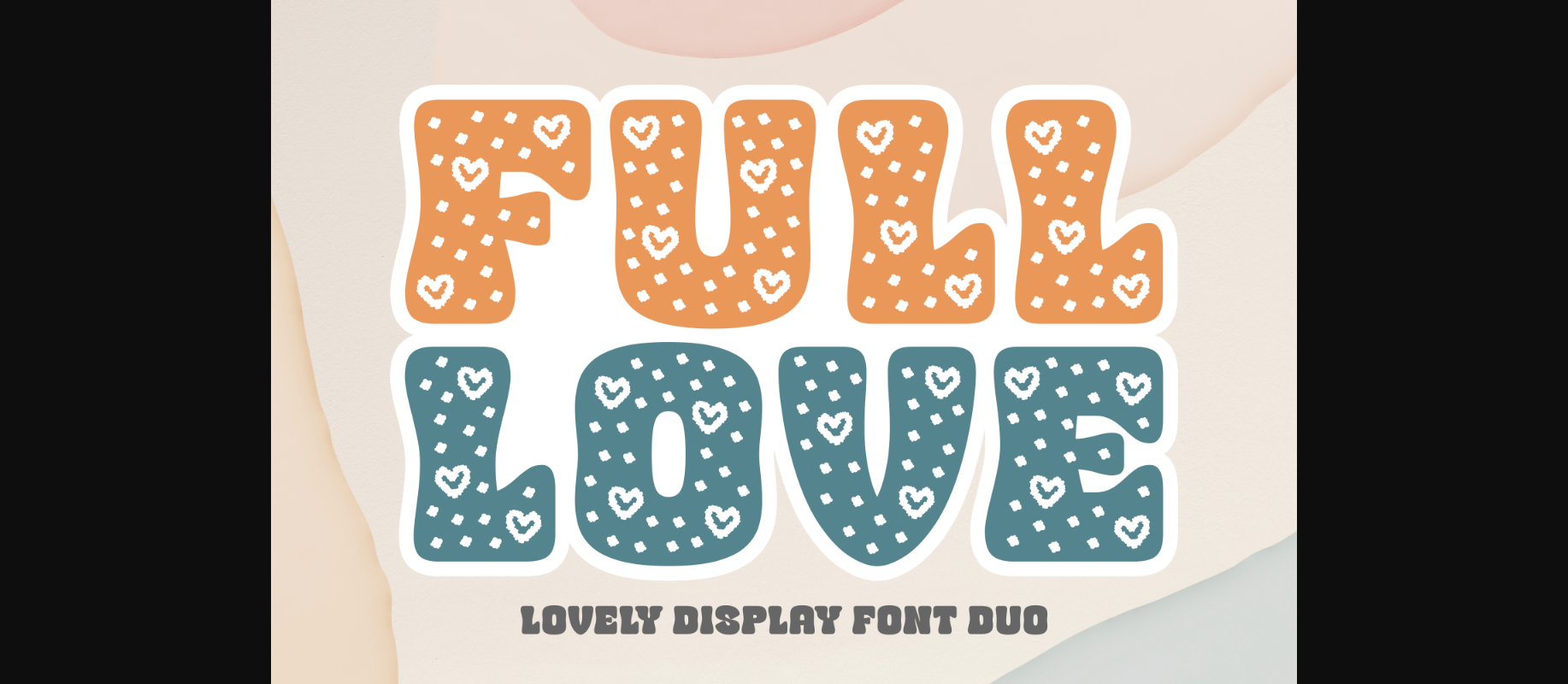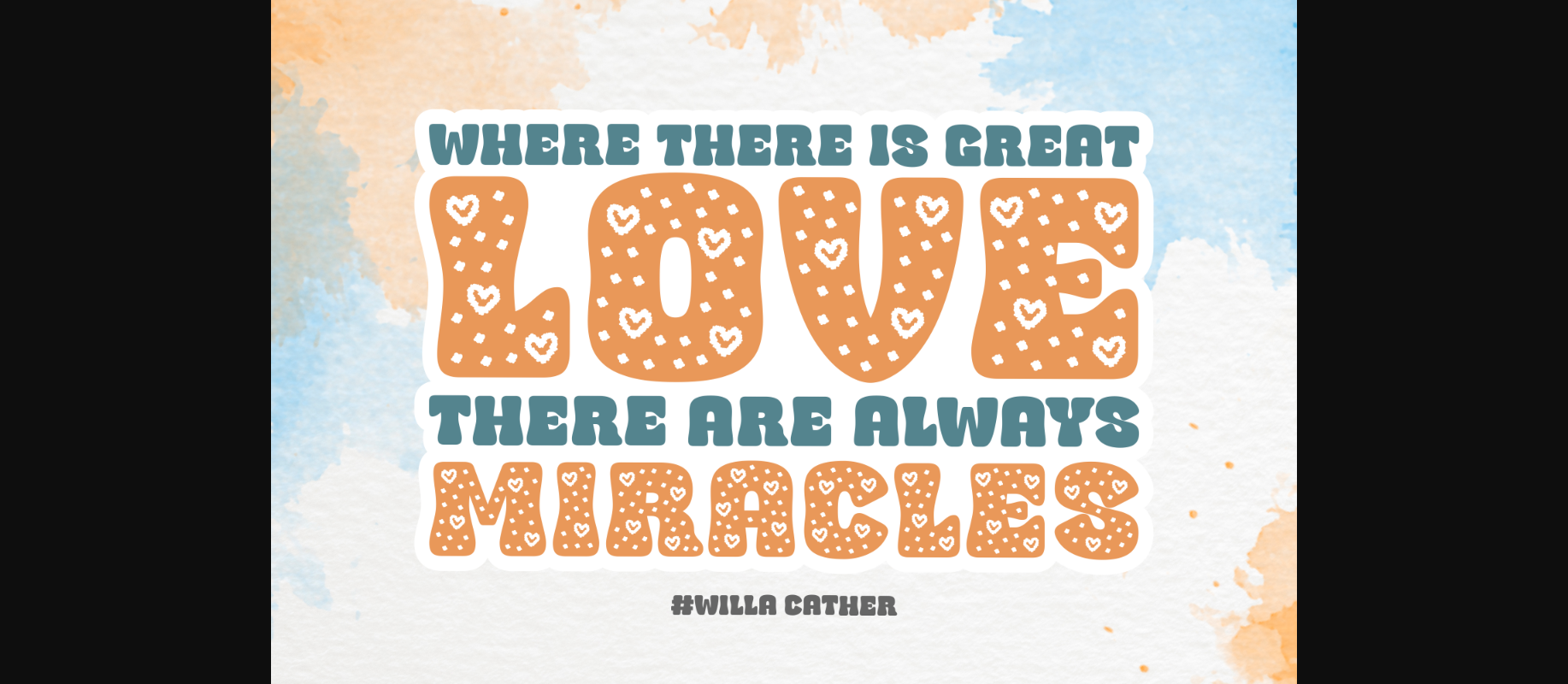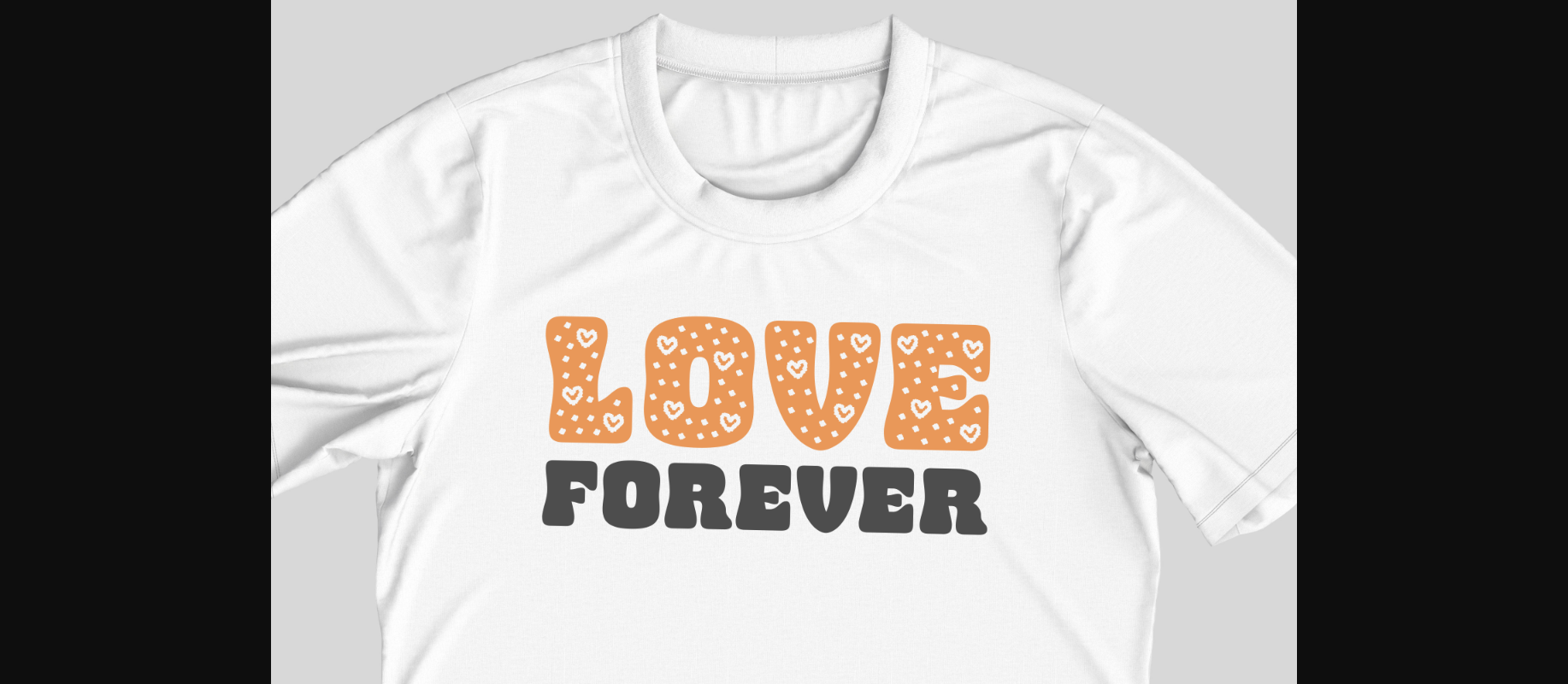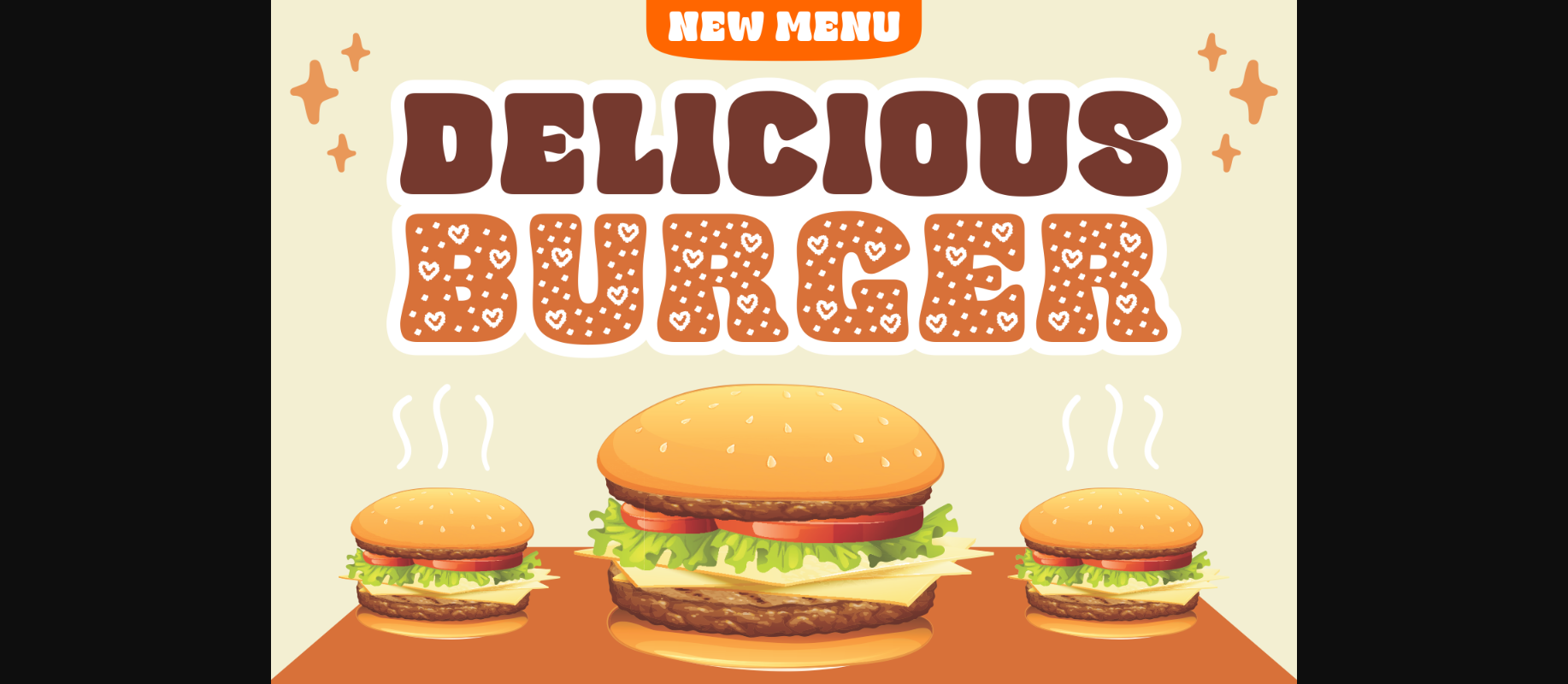
Full Love Font
About Full Love Font
Full Love is a lovely and bright decorative font that fits great this time of the year. Add this chunky lettered font to your designs and notice how it makes them come alive!